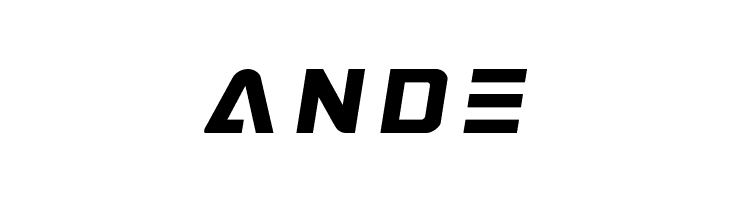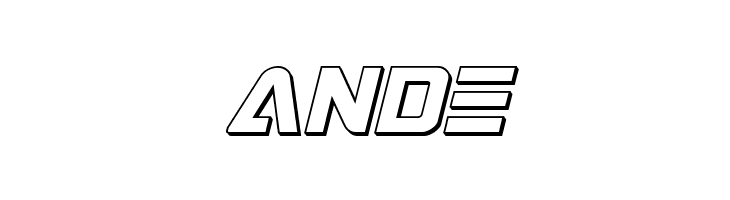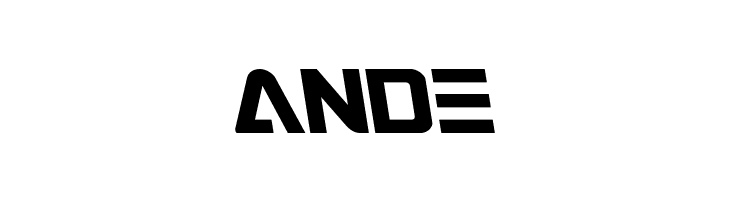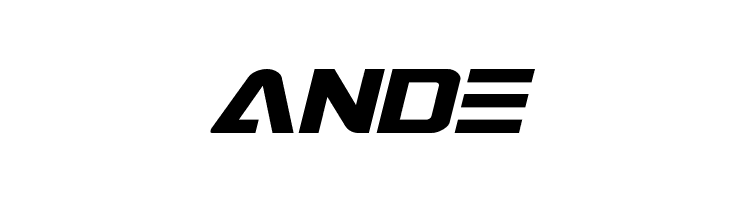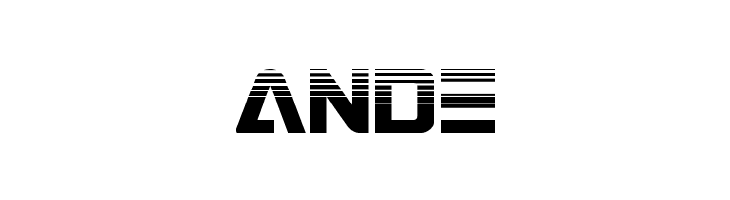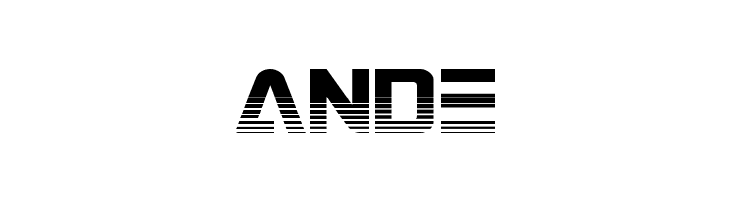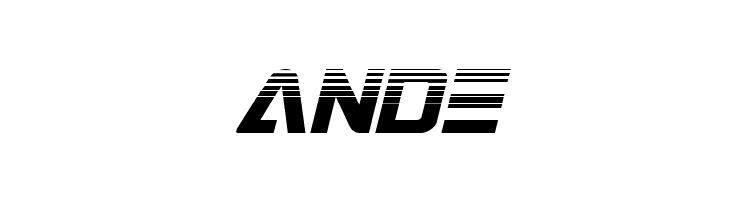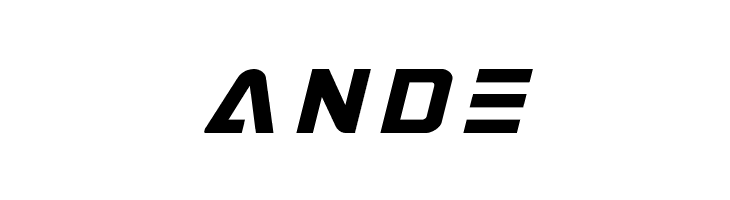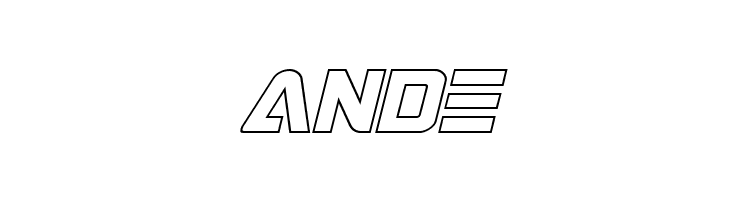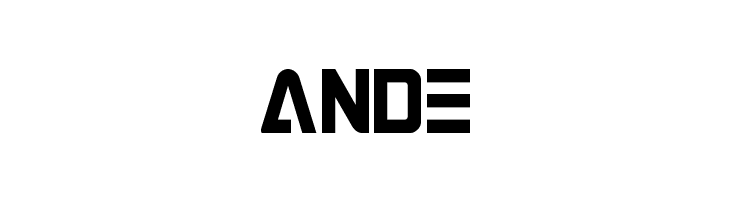
A bold, 3D italic font with a futuristic and dynamic style.
A bold, futuristic, and condensed font with a geometric style.
A futuristic, condensed italic font with sharp angles and a dynamic style.
A bold, condensed, semi-italic font with a futuristic and dynamic design.
A bold, futuristic font with angular, geometric characters and expanded width.
A bold, expanded italic font with a futuristic and dynamic design.
A bold, expanded, semi-italic font with a futuristic and dynamic design.
A futuristic, bold font with a gradient effect created by horizontal lines.
A futuristic, line-patterned font with a bold, geometric style.
A futuristic italic font with a dynamic, linear gradient design.
A futuristic italic font with gradient lines and a dynamic, high-tech style.
A futuristic, bold font with a halftone effect and geometric design.
A bold, italicized font with a futuristic halftone effect.
A bold, futuristic italic font with angular, geometric characters.
A bold, futuristic font with angular, slanted characters and a tech-inspired style.
A futuristic, geometric outline font with a bold and angular design.
A futuristic, italicized outline font with a geometric design.
A futuristic, outlined, semi-italic font with a geometric design.
A bold, semi-italic font with a futuristic and dynamic design.
A bold, futuristic font with angular, slanted characters and a geometric design.
A bold, italic, and futuristic font with a dynamic, angular design.
A bold, futuristic font with geometric shapes and sharp angles.
A futuristic italic font with bold, angular letterforms and a dynamic style.
A futuristic, semi-italic font with bold, angular characters and a geometric style.
A futuristic, two-tone font with a dynamic, striped design.
A futuristic, two-tone italic font with a dynamic and speedy appearance.
A bold, futuristic font with geometric and angular letterforms.